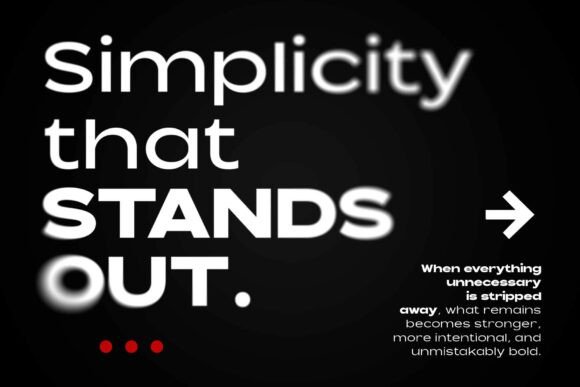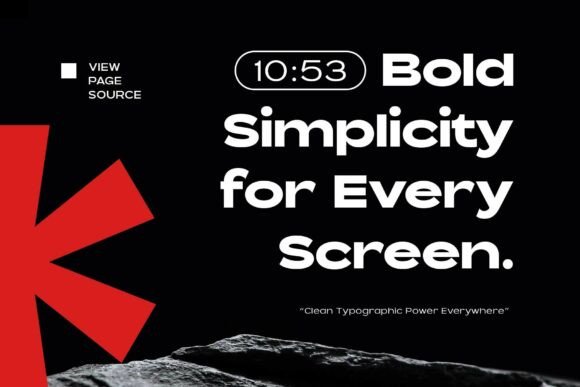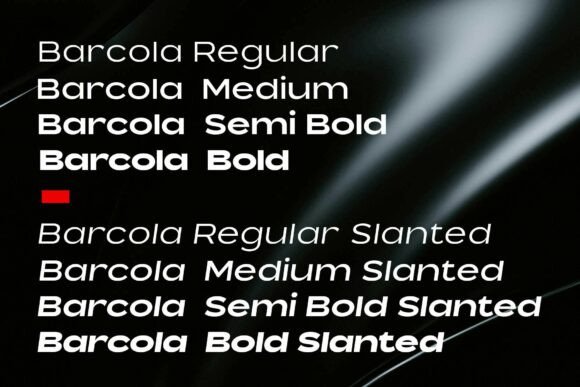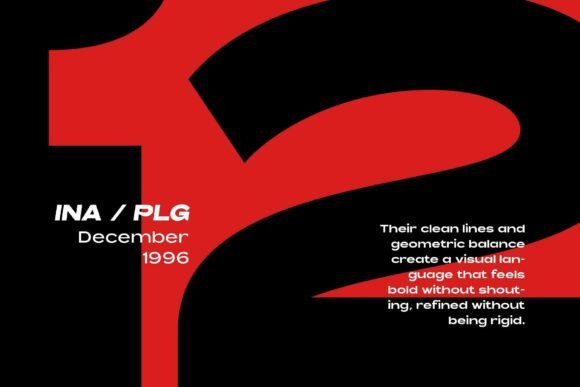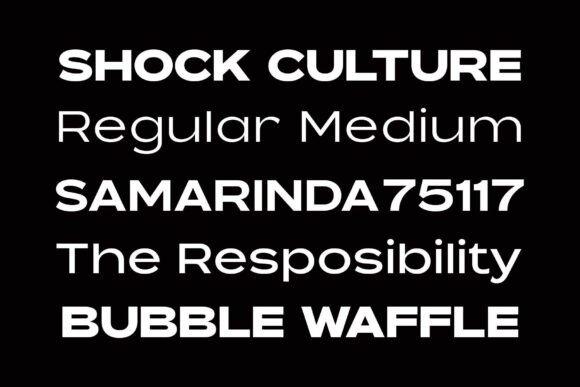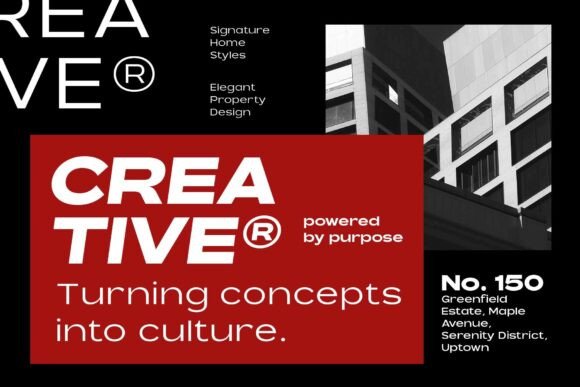
Introducing Barcola Expanded Font: Elevate Your Designs with Contemporary Flair
In the realm of typography, a font can make or break the visual impact of a design. For designers and crafters seeking a modern edge, Barcola Expanded Font emerges as a versatile and stylish solution. This contemporary-style font, with its unique characteristics, is engineered to create statements that captivate and inspire. Offering four distinct weights, Barcola is tailored for a multitude of applications, from digital media to print, delivering a strong yet minimalist aesthetic.
Exploring Barcola: A Family of Fonts
Barcola Expanded Font is not just a single font but a comprehensive family that includes four weights: Regular, Medium, Semibold, and Bold. Each weight brings a distinct flavor to the table, ensuring that designers have the perfect tool for various projects. Whether you’re crafting a bold logo, designing an engaging website, or laying out a stylish magazine, Barcola has got you covered.
- Barcola – Regular: Ideal for body text and general design needs, providing a clean and readable appearance.
- Barcola – Medium: Adds a bit more weight for emphasis, suitable for headings and subheadings.
- Barcola – Semibold: Offers a noticeable increase in boldness, perfect for creating visual hierarchy.
- Barcola – Bold: The star of the show, delivering a strong, impactful statement that’s both minimalist and commanding.
Slanted Style: Adding Playfulness to Your Designs
To add an extra layer of dynamism to your designs, Barcola also includes a slanted style for each weight. This feature allows designers to inject a playful or informal vibe into their work, making it perfect for projects that require a bit of personality. The slanted versions can be used to draw attention, create visual interest, or simply to add a human touch to digital and print materials.
Versatility Across Mediums
One of the standout features of Barcola Expanded Font is its versatility. It’s designed to excel in both text and display use, making it a valuable asset for a wide range of applications:
- Magazines: Use Barcola to create engaging headlines, pull quotes, and body text that keeps readers engaged.
- Posters: Make a bold statement with Barcola Bold or add a playful twist with the slanted versions.
- Logos: The unique characteristics of Barcola make it an excellent choice for logos that need to stand out.
- Websites: Enhance your web design with a clean, modern font that’s optimized for digital use.
- Cards and Branding: From business cards to comprehensive brand guidelines, Barcola brings a touch of sophistication and modernity.
Why Choose Barcola Expanded Font?
Barcola Expanded Font is more than just a typeface; it’s a design solution that bridges the gap between aesthetics and functionality. Here are a few reasons why designers and crafters are gravitating towards Barcola:
- Unique yet Legible: Barcola’s design strikes a perfect balance between uniqueness and legibility, ensuring your message is conveyed effectively.
- Flexibility: With four weights and slanted styles, Barcola adapts to your design needs, offering flexibility across various projects.
- Contemporary Aesthetic: Stay ahead of the curve with a font that embodies modern design sensibilities.
- Multipurpose: Suitable for both digital and print applications, making it a valuable addition to your design toolkit.
In conclusion, Barcola Expanded Font is poised to become a staple in the world of design. Its blend of modernity, versatility, and impact makes it an invaluable resource for designers and crafters looking to elevate their work. Whether you’re creating a brand identity, designing marketing materials, or simply experimenting with typography, Barcola offers the tools you need to make a lasting impression.